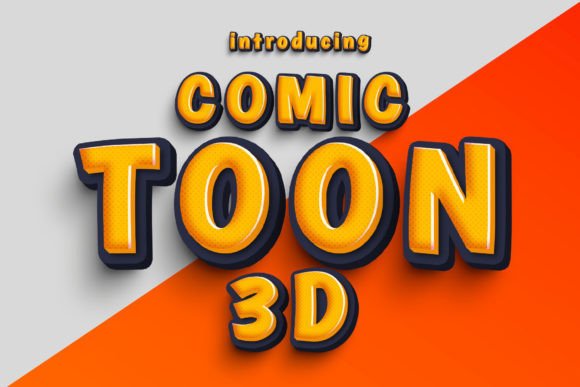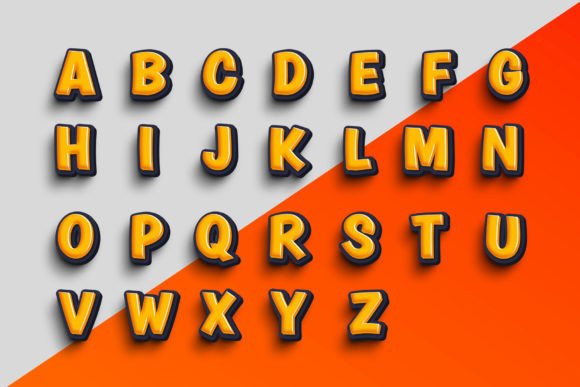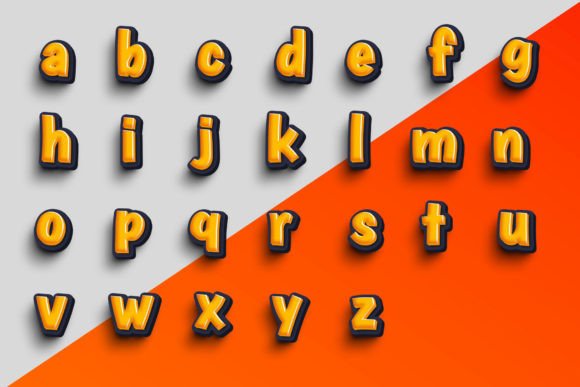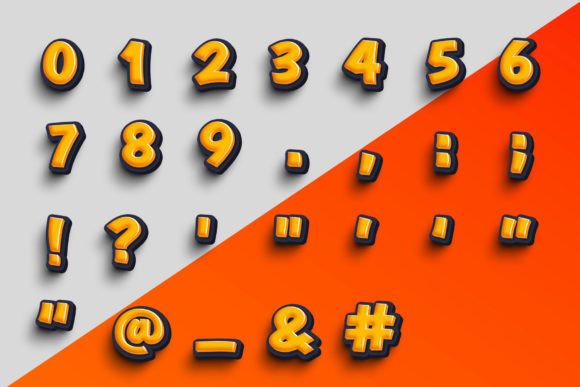
Comic Toon 3d Font
About the Comic Toon 3d Font
Step up your design game with Comic Toon 3d Font, a font that exudes confidence and style. Comic Toon 3D is a cool and fun Color font 3D Style. It is the perfect font for titles or words needing a more dramatic emphasis. Whatever the topic, this font will be a wonderful asset to your font library, as it has the potential to enhance any creation.
Comic Toon 3D excels in headlines, short impactful titles, and playful branding projects where a bold, three-dimensional effect is desired. It’s ideal for children’s books, comic strips, cartoons, or packaging for products targeting a younger audience. Avoid using it for body text or long paragraphs; its playful nature and 3D effect would become distracting and difficult to read.
Its strong, cartoonish personality pairs well with clean sans-serif fonts like Open Sans or Lato for balance, or a more geometric sans-serif such as Montserrat to create a modern feel. For a slightly more sophisticated look, consider pairing it with a classic serif like Garamond or a script font like Great Vibes for contrast.
The font’s overall personality is undeniably bold and playful, injecting a sense of fun and energy into any design. This makes it a great choice for projects requiring high visual impact and a lighthearted approach, but less suitable for serious or corporate branding.